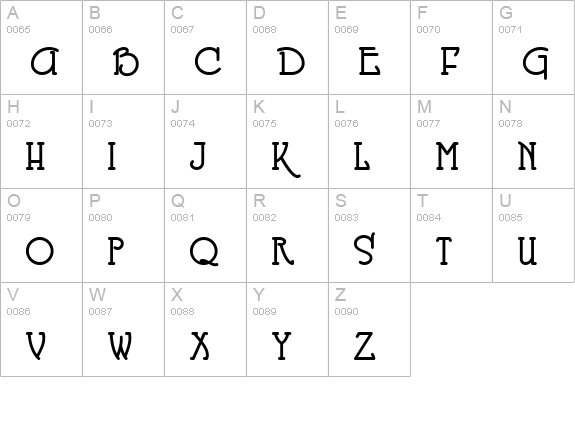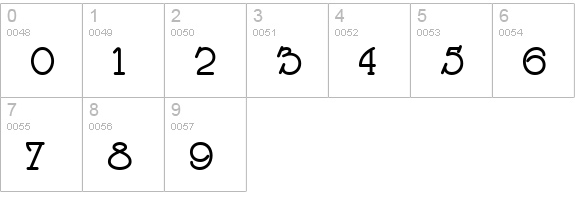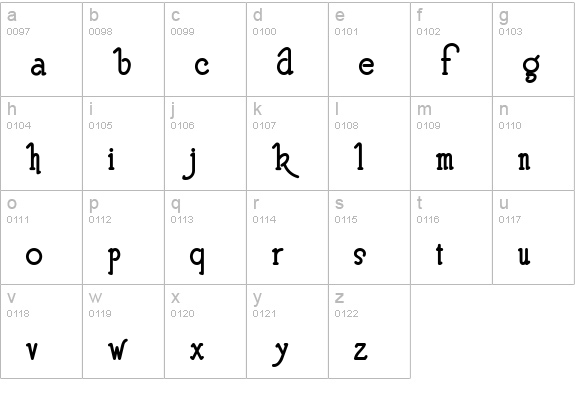
BerglingFantasiaNF Bold is a strong, high-contrast variant in the BerglingFantasiaNF typeface family \xE2\x80\x94 well suited to headlines, attention-grabbing titles, and strong calls-to-action.
BerglingFantasiaNF Bold font is a stunning display typeface that exudes elegance and sophistication. Its bold and eye-catching design makes it perfect for headlines, posters, and branding projects that require a touch of class. The font features intricate details and a unique style that sets it apart from other fonts. What makes BerglingFantasiaNF Bold font even more appealing is that it is free to download at FontsMarket.com. This means that you can add this exquisite font to your collection without having to spend a penny. With its versatility and striking appearance, BerglingFantasiaNF Bold font is sure to make a statement in any design project. Download it today and elevate your creations with this exceptional typeface.